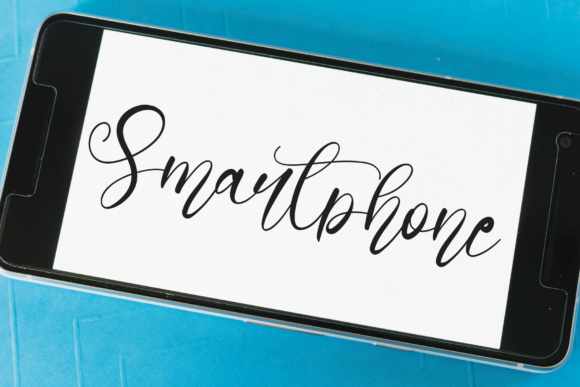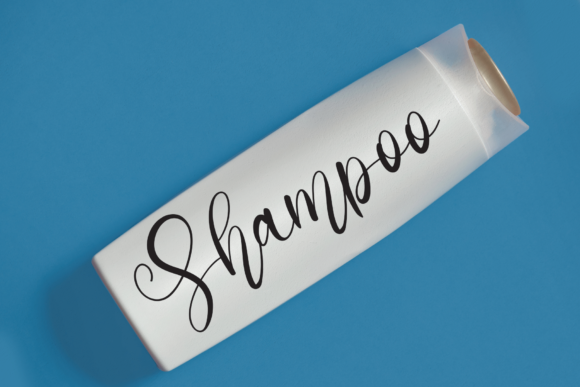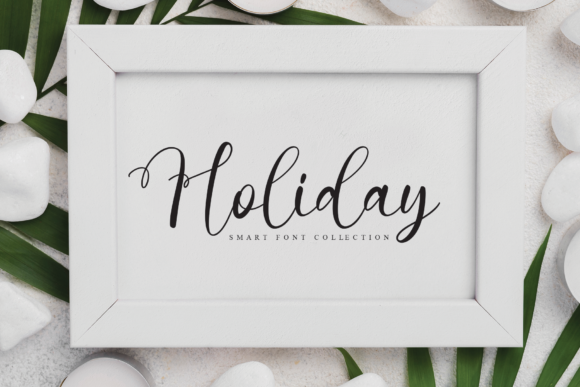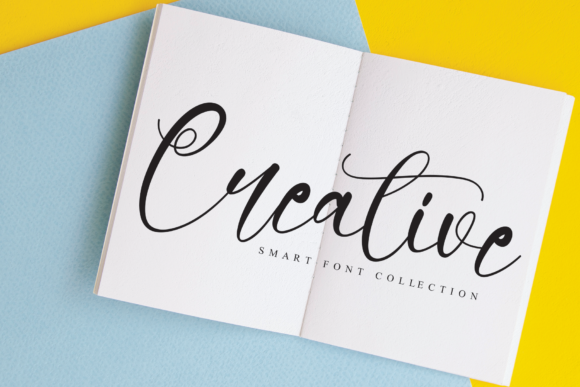
Introduction to Milkylove Font
Do you remember that moment when you stumbled upon the perfect design inspiration? It’s like a spark of creativity ignites, and suddenly, your mind is flooded with ideas for a beautiful and unique project. For designers like you, discovering a valuable design resource can be a game-changer. One such treasure is the lovely Milkylove Font, a charming script font that adds a touch of romance and whimsy to any creative endeavor.
With its cursive and well-balanced design, the Milkylove Font is perfect for designers who want to create high-quality designs with a personalized touch. Whether you’re working on a free download project or a commercial design, this font is sure to impress. Plus, its transparent background makes it easy to integrate into your designs, ensuring a seamless and professional finish.
Key Features of Milkylove Font
- High-quality, professional font design ideal for creative projects
- Supports a wide range of languages, making it a versatile font for global design projects
Honest Review: Milkylove Font
As a designer, I’m always on the lookout for high-quality design resources that can elevate my creative projects. The Milkylove Font is one such find that has caught my attention lately.
- ✨ Unique and playful design style that adds a touch of whimsy to any project
- ✨ Excellent legibility, even at smaller font sizes
- ⚠️ Limited font styles and weights available
Overall, the Milkylove Font is a solid addition to any designer’s toolkit. While it may not be perfect, its unique design style and high quality make it a great choice for creative projects that require a bit of flair.
Tips for Getting the Most Out of Milkylove Font
Use the Milkylove Font in conjunction with high-quality images to create a cohesive design. Experiment with different font sizes and styles to add visual interest to your project. Consider using the font with a transparent background to create a unique design effect.
The Milkylove Font is ideal for creative projects such as social media graphics, blog posts, and presentation design. It’s also suitable for use in business cards, flyers, and brochures. Download the font for free and start creating your next design project today.